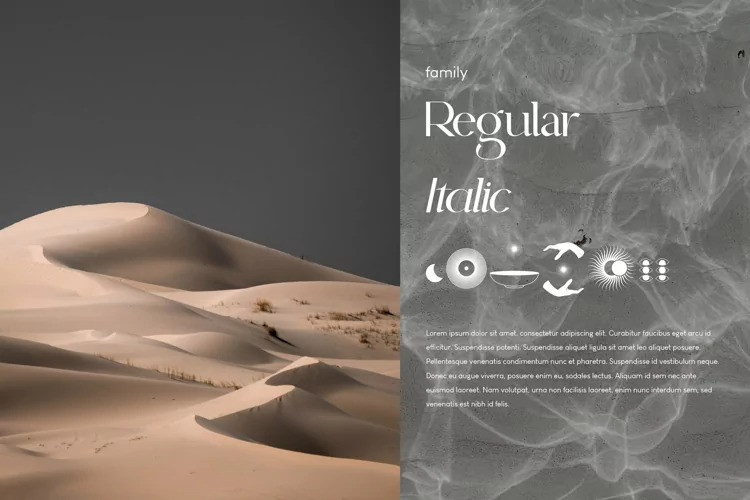
Qrada Font
Introducing Qrada Serif Fonts, is a family of classy modern serif fonts inspired by elegance, modern and classic at the same time. It looks lovely on wedding invitations, thank you cards, quotes, greeting cards, logos, business cards and every other design that needs a custom touch.